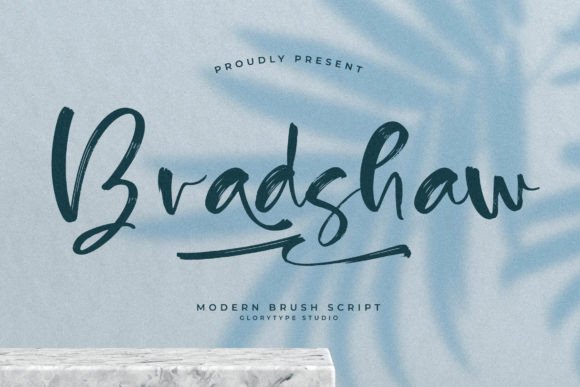
The Timeless Charm of Bradshaw Font: A Designer’s Delight
I’ll never forget the time I was working on a branding project for a boutique bakery, and I was struggling to find the perfect font to capture their warm and inviting personality. That’s when I stumbled upon the Bradshaw font, and it was love at first sight! ✨ The elegant, handwritten curves and unique touches instantly elevated my design, and I knew I’d found the perfect fit.
An Honest Review of Bradshaw Font
- ✨ Unique and beautiful touches on every letter
- ✅ Perfect for creating eye-catching logos, branding, and quotes
- 💫 Timeless and elegant design that suits various design styles
- 🎨 Highly versatile and can be used for both digital and print projects
While Bradshaw font is an excellent choice for many design projects, there are a few things to keep in mind: ⚠️
- 🤔 Some letters may appear a bit condensed, which can affect readability at smaller font sizes
- ⚠️ Limited availability of stylistic alternates, which might limit design variations
The Story Behind Bradshaw Font
The Bradshaw font was designed with the intention of creating a timeless, elegant script font that would evoke a sense of sophistication and refinement. The designer, inspired by classic calligraphy and handwritten letters, aimed to craft a font that would be both beautiful and versatile.
| Font Name | Bradshaw Font |
| Author | Glorytype Studio |
Q: Is Bradshaw font suitable for body text?
A: While Bradshaw font is beautiful, it’s best suited for headlines, titles, and short paragraphs. For body text, a clearer font may be more readable.